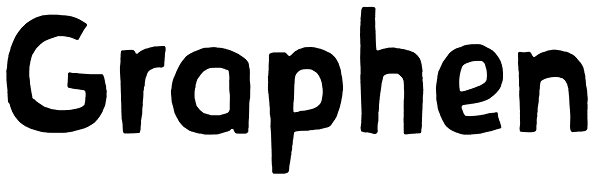
Graphen
Graphen family is a hand drawn typeface with 5 different weights. This font contains script that replaces glyphs with their alternates. It is based on checking the same glyphs in close range - not on a random appearance. Every weight was designed...